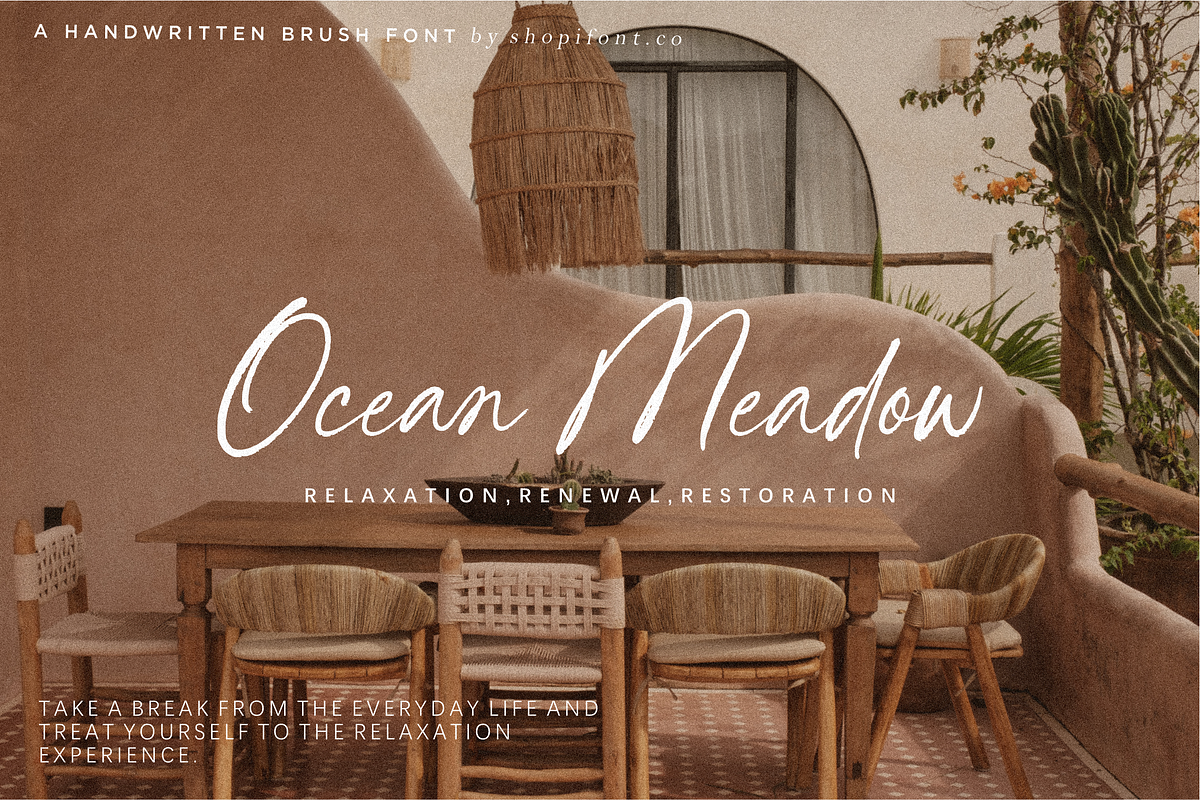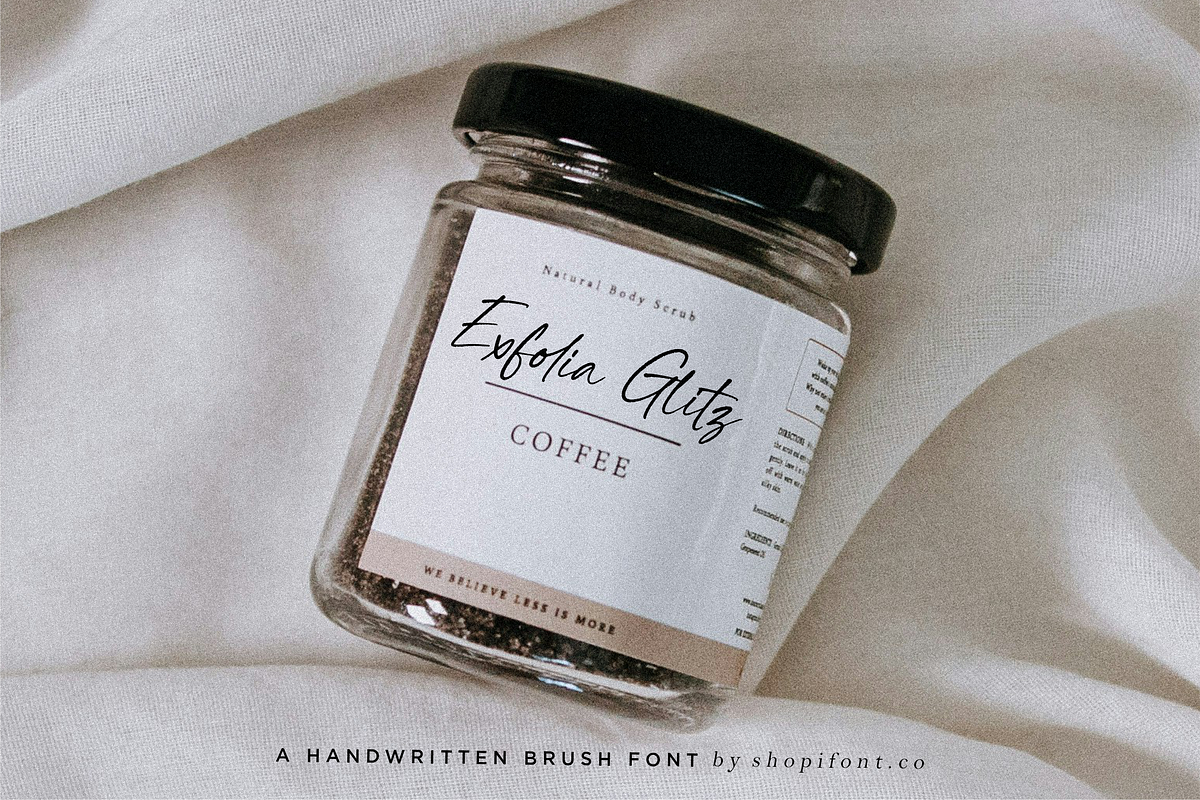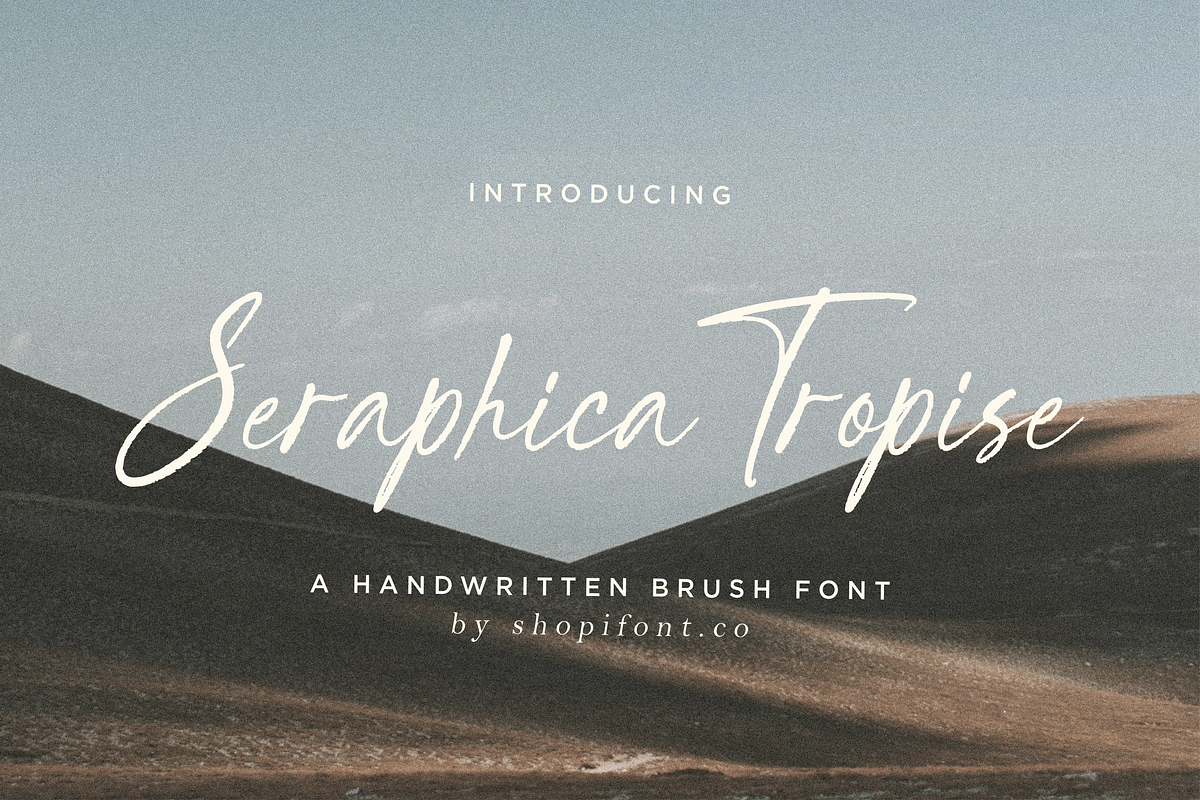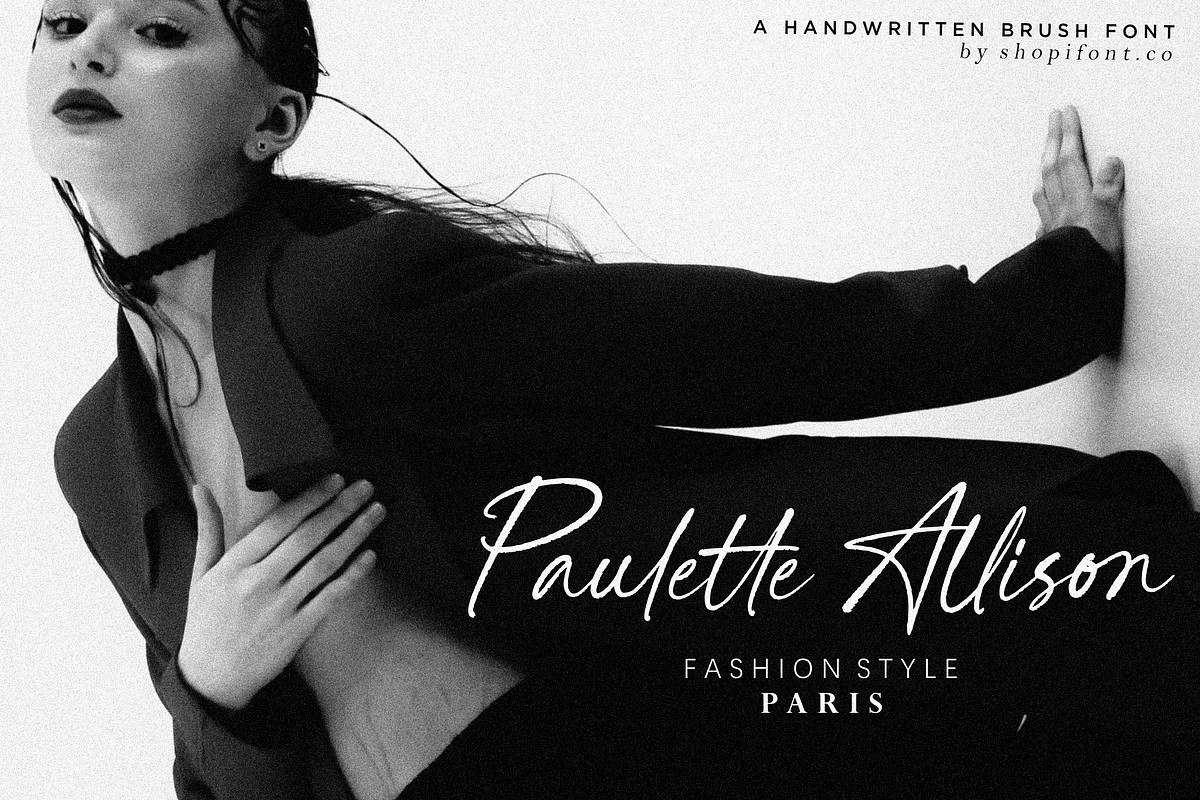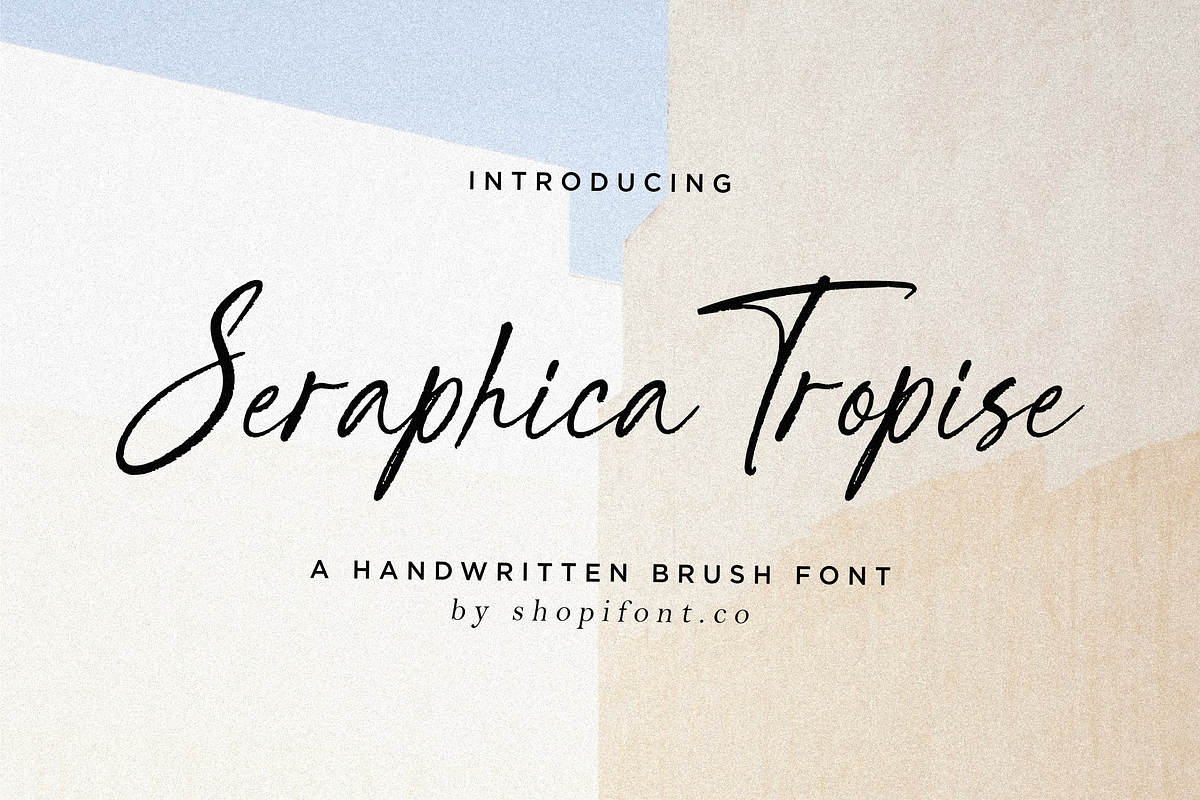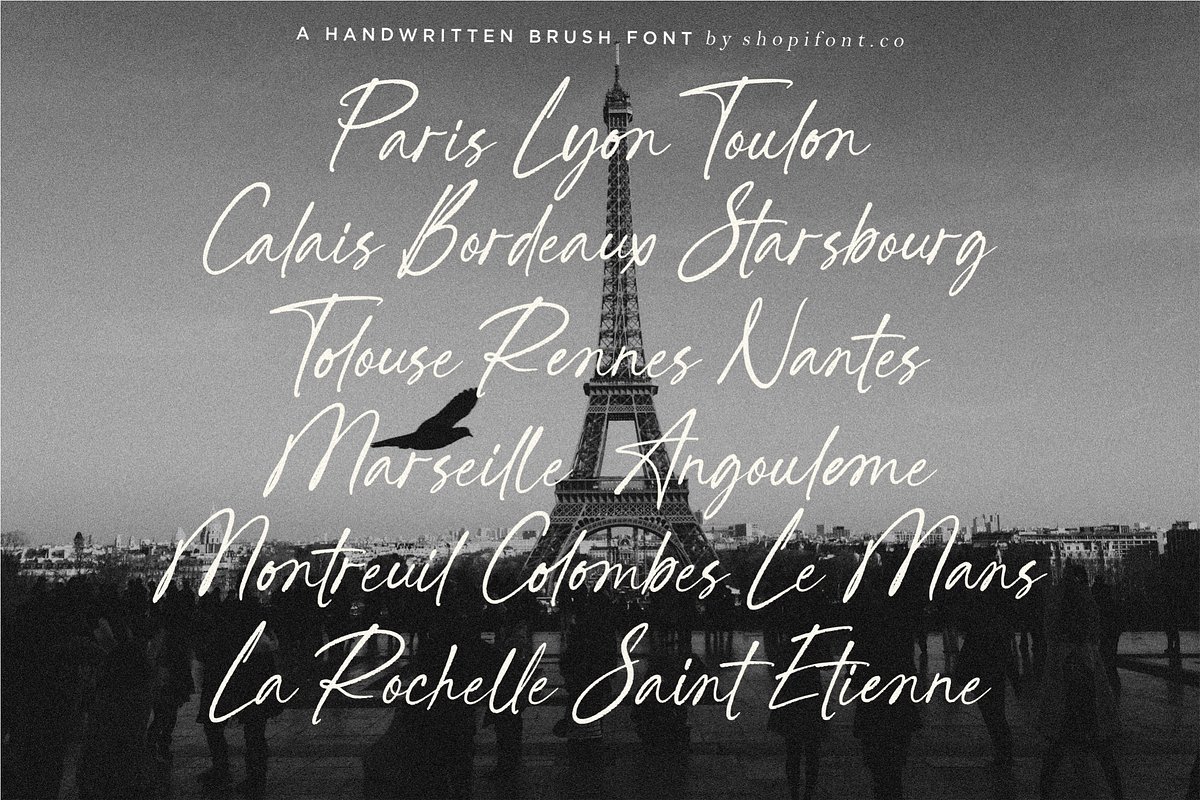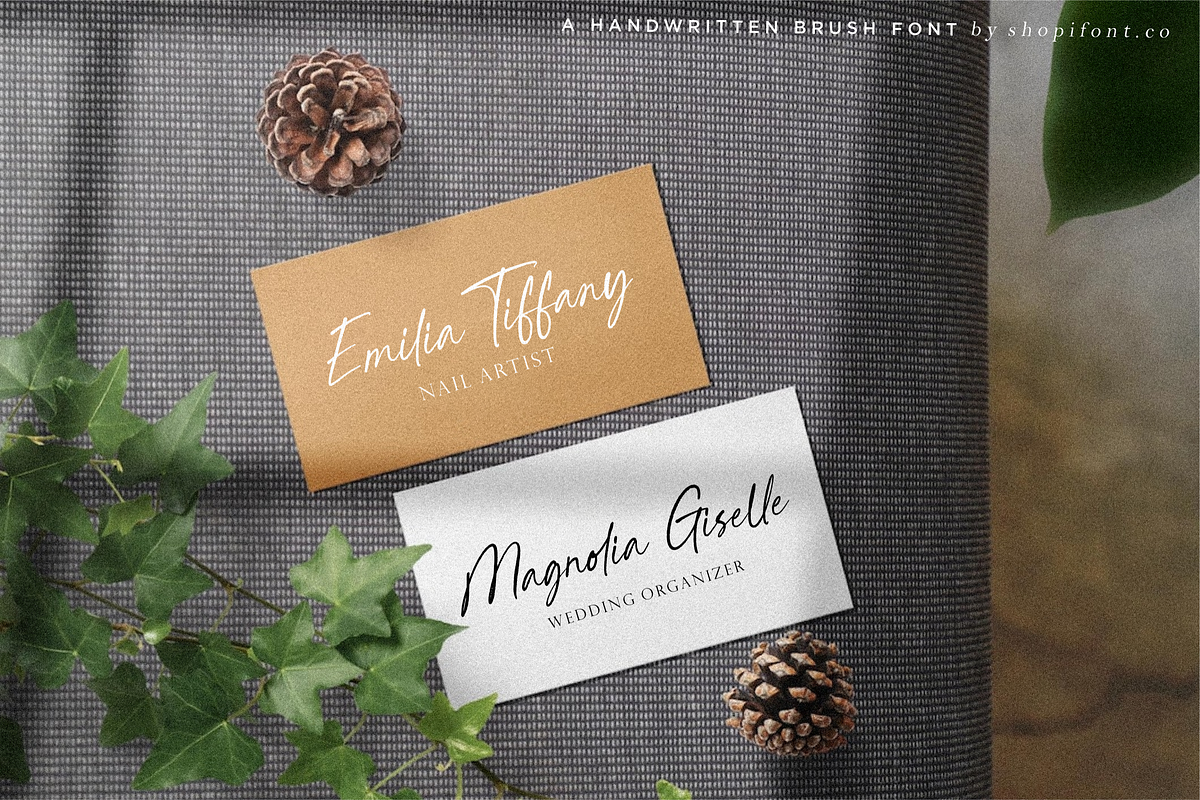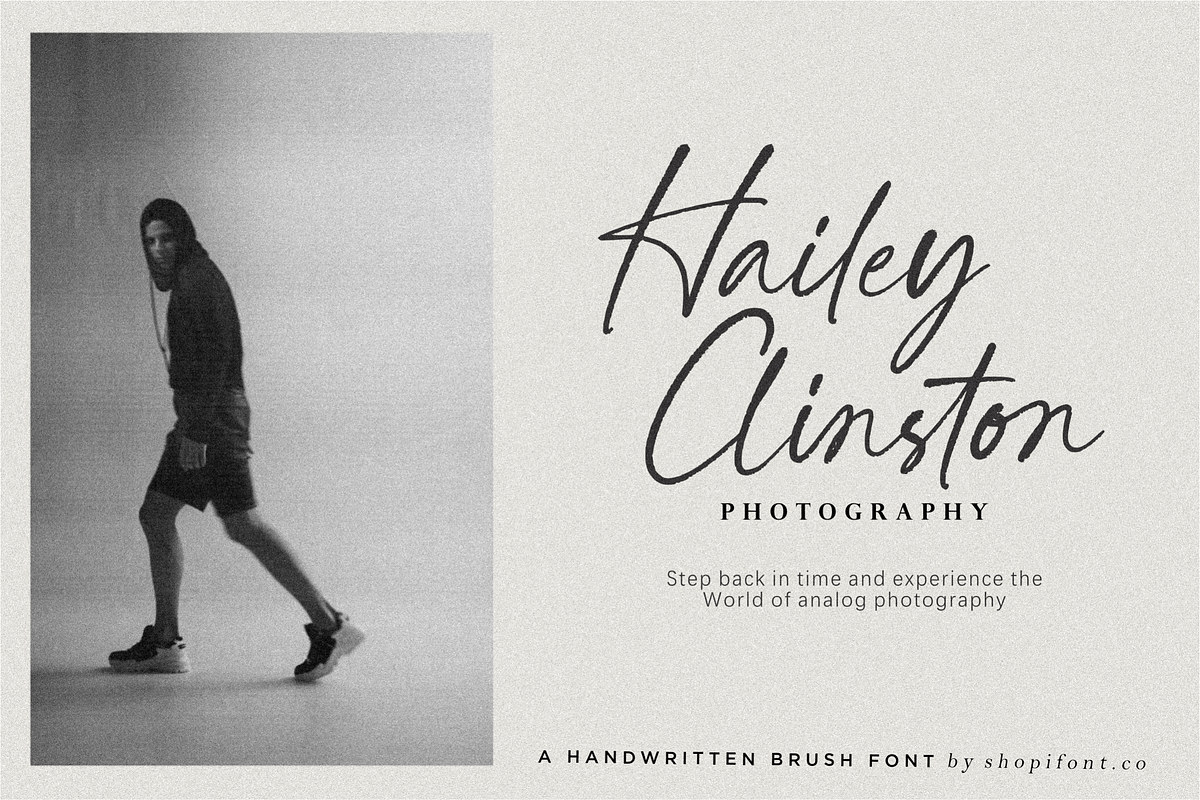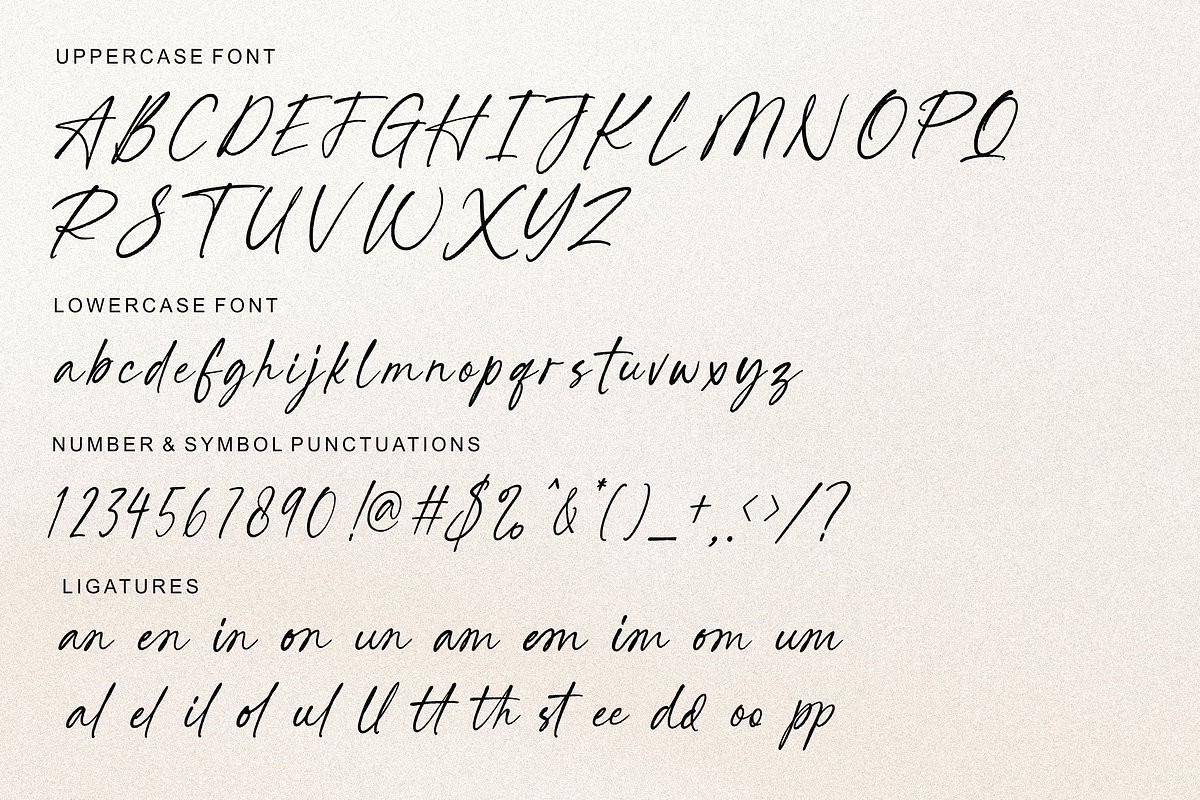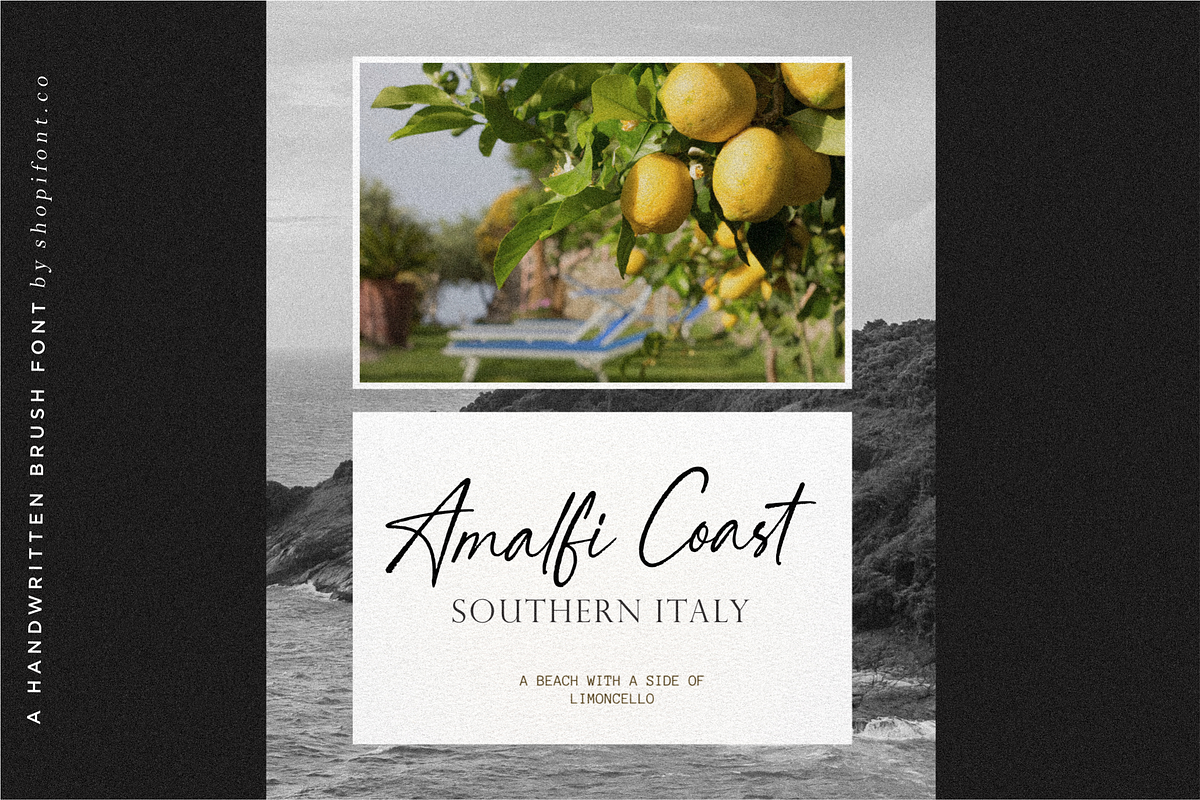
Seraphica Tropise
Proudly Present, Seraphica Tropise
Seraphica Tropise is A Handwritten Brush Font Perfect for wedding, product packaging, branding project, magazine, social media, or just used to express words above the background on your best project.